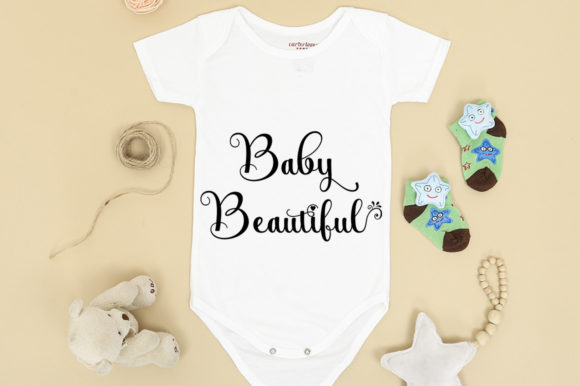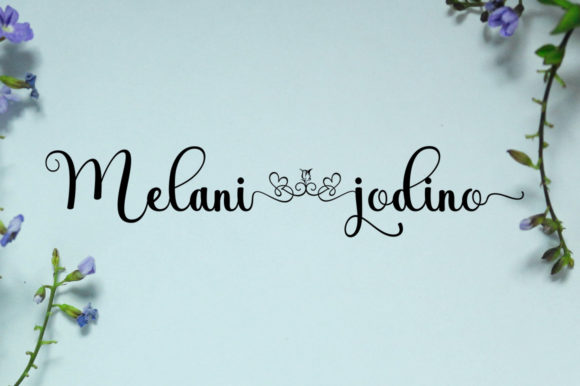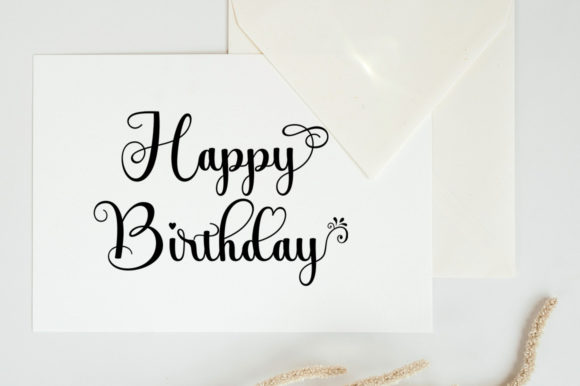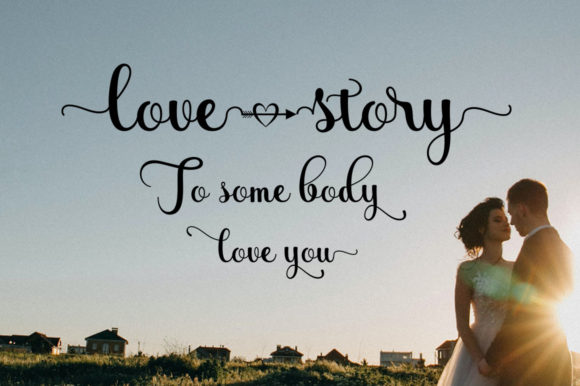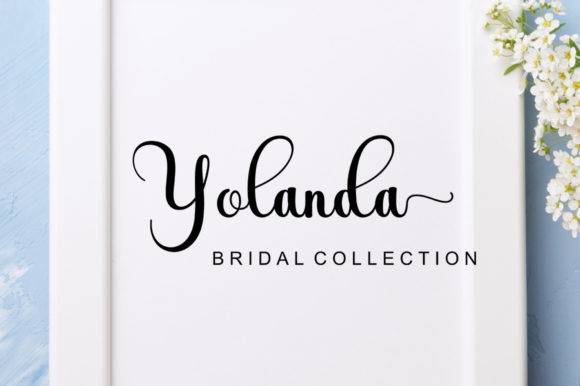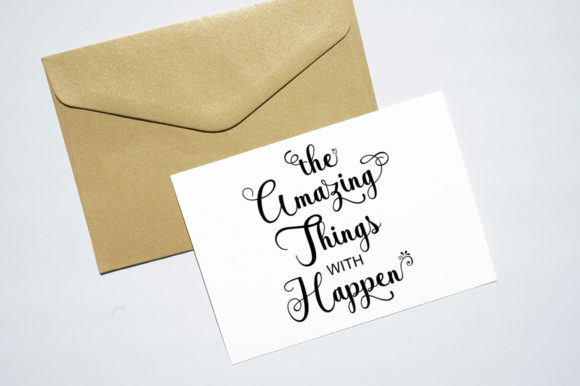
Introduction to Hello Medhiza Font
Have you ever stared at a blank page, waiting for the perfect spark to ignite your creative project? As designers, we’ve all been there – searching for that one special element to elevate our designs from good to great. For me, it was the discovery of the Hello Medhiza Font that changed everything. This romantic and sweet calligraphy typeface is like a breath of fresh air, adding a touch of luxury to any design project.
With its unique, flowing characters that dance along the baseline, the Hello Medhiza Font is a game-changer for designers looking to add a high-quality, exclusive feel to their work. And the best part? It’s available for free download, making it an invaluable design resource for anyone looking to take their creative projects to the next level.
Key Features of Hello Medhiza Font
- Unique Script Font Design: Hello Medhiza Font features a beautiful and elegant script font design, perfect for creative projects that require a touch of sophistication.
- High-Quality Typography: This font is designed with high-quality typography in mind, ensuring that your text stands out with clarity and readability.
- Perfect for Creative Projects: The Hello Medhiza Font is ideal for creative projects such as wedding invitations, birthday cards, and other special occasion designs.
Honest Review: Hello Medhiza Font
I recently stumbled upon the Hello Medhiza Font while searching for a design resource for my creative project. I must say, I was pleasantly surprised by the overall quality of this font.
What works well: ✨ The font has a unique, elegant design that’s perfect for projects that require a touch of sophistication. The transparent background option is also a great feature, allowing for easy customization and blending with other design elements. The free download option is also a huge plus, making it accessible to designers on a budget.
Here are some of the key features I loved about the Hello Medhiza Font:
However, there are a few limitations to consider: ⚠️ The font selection is limited to a single style, which may not be suitable for projects that require multiple font options. Additionally, the font may not be as versatile as some other design resources on the market.
Overall impression: I was impressed by the Hello Medhiza Font’s unique design and high-quality features. While it may not be the most versatile design resource, it’s a great option for projects that require a touch of elegance and sophistication. I would definitely recommend it to designers looking for a free design resource with a transparent background option.
Hello Medhiza Font
To get the most out of the Hello Medhiza Font, experiment with different font sizes, colors, and styles. You can also use it in combination with other design elements, such as images and shapes, to create a unique and engaging design. Don’t be afraid to try new things and push the boundaries of your creative project.
The Hello Medhiza Font is ideal for various creative projects, including logos, business cards, brochures, and social media graphics. Its high-quality design and versatility make it a popular choice among designers and non-designers alike.